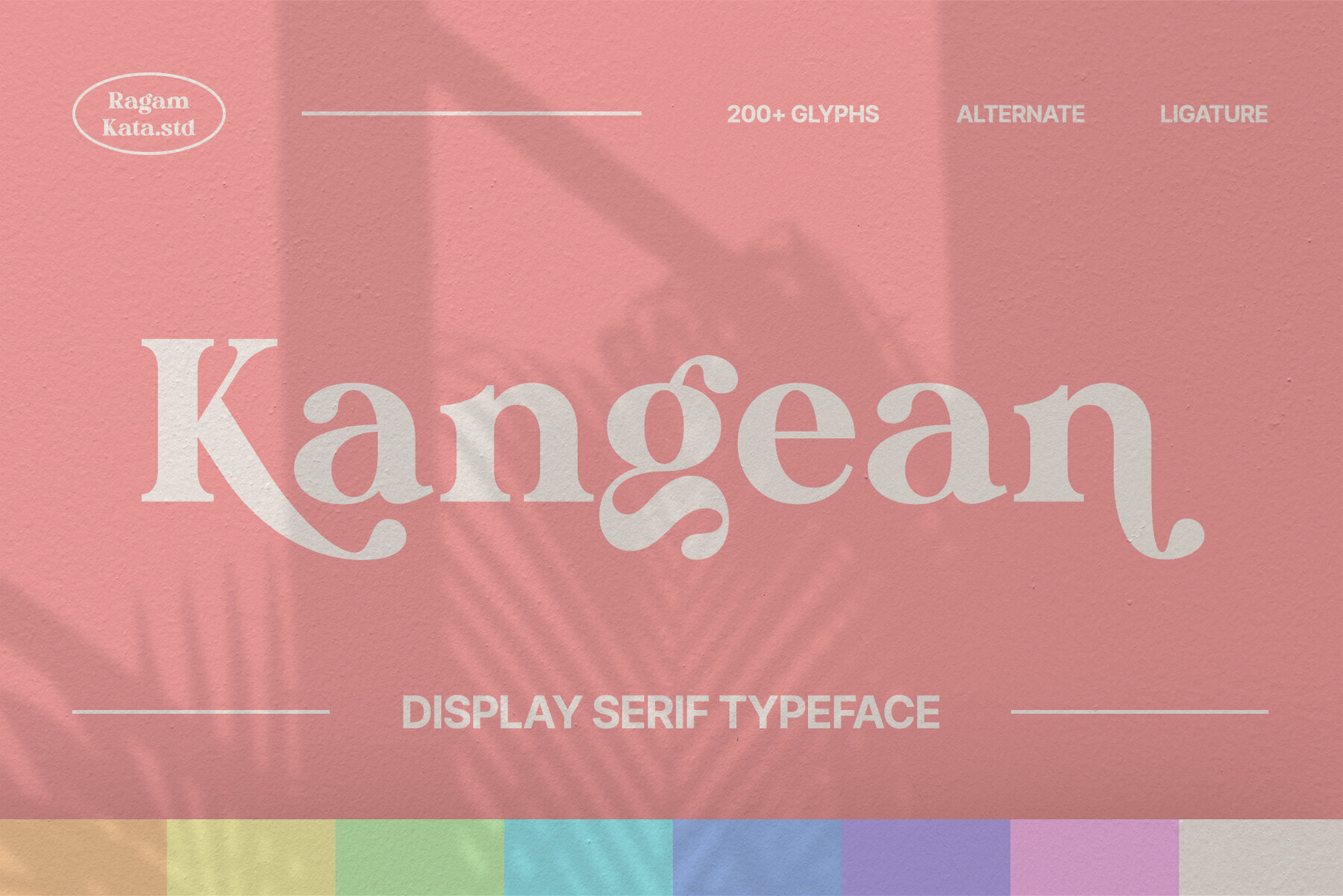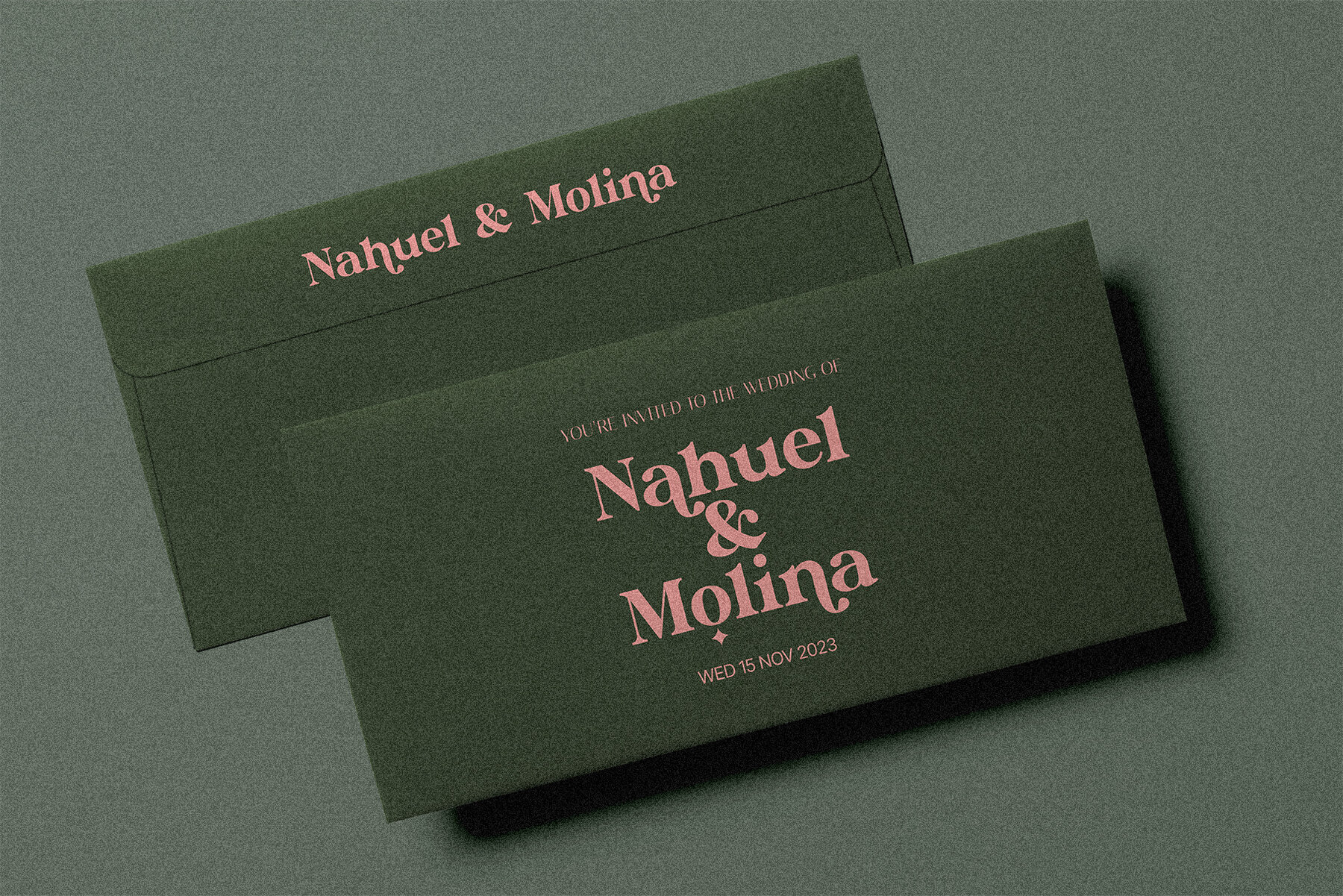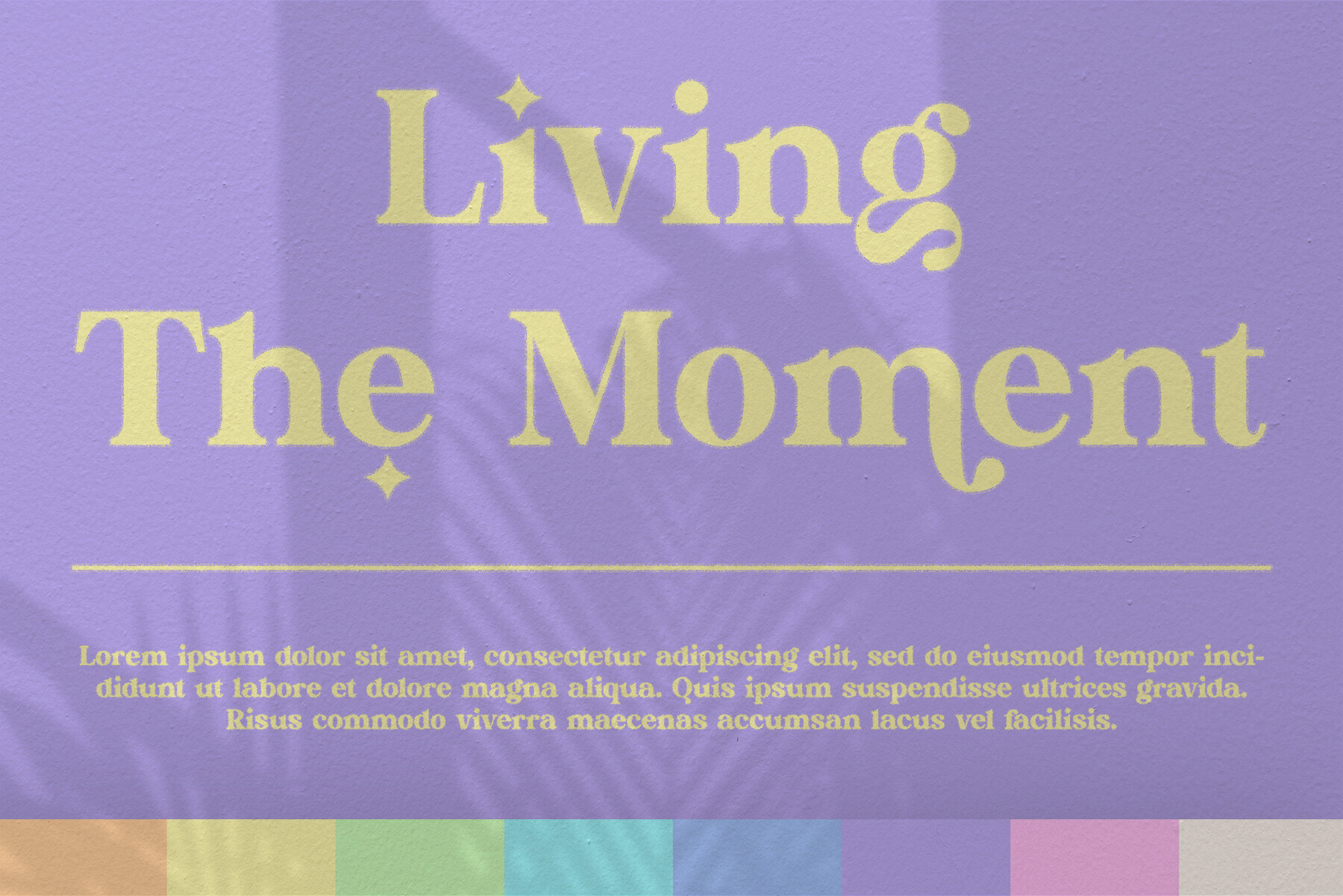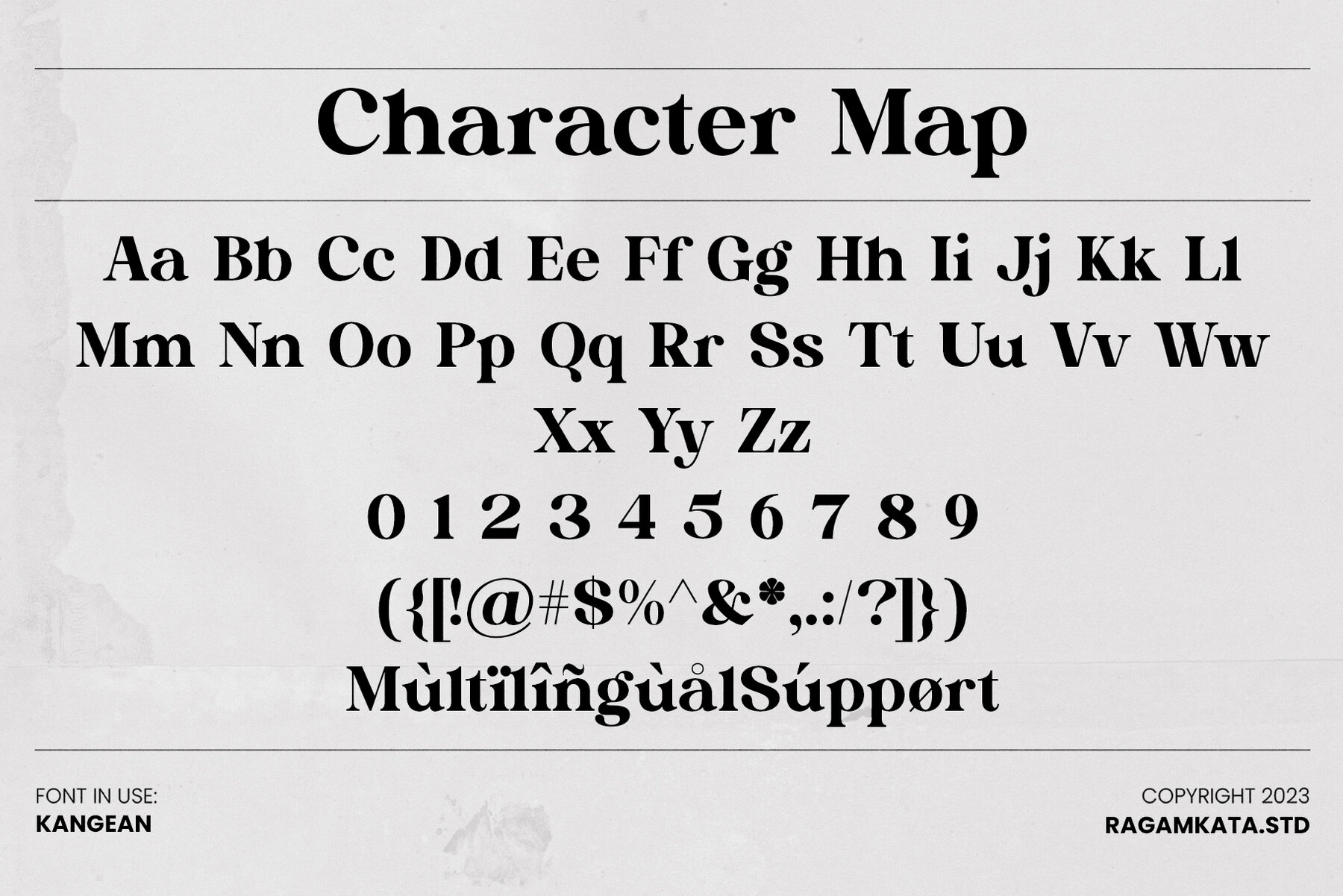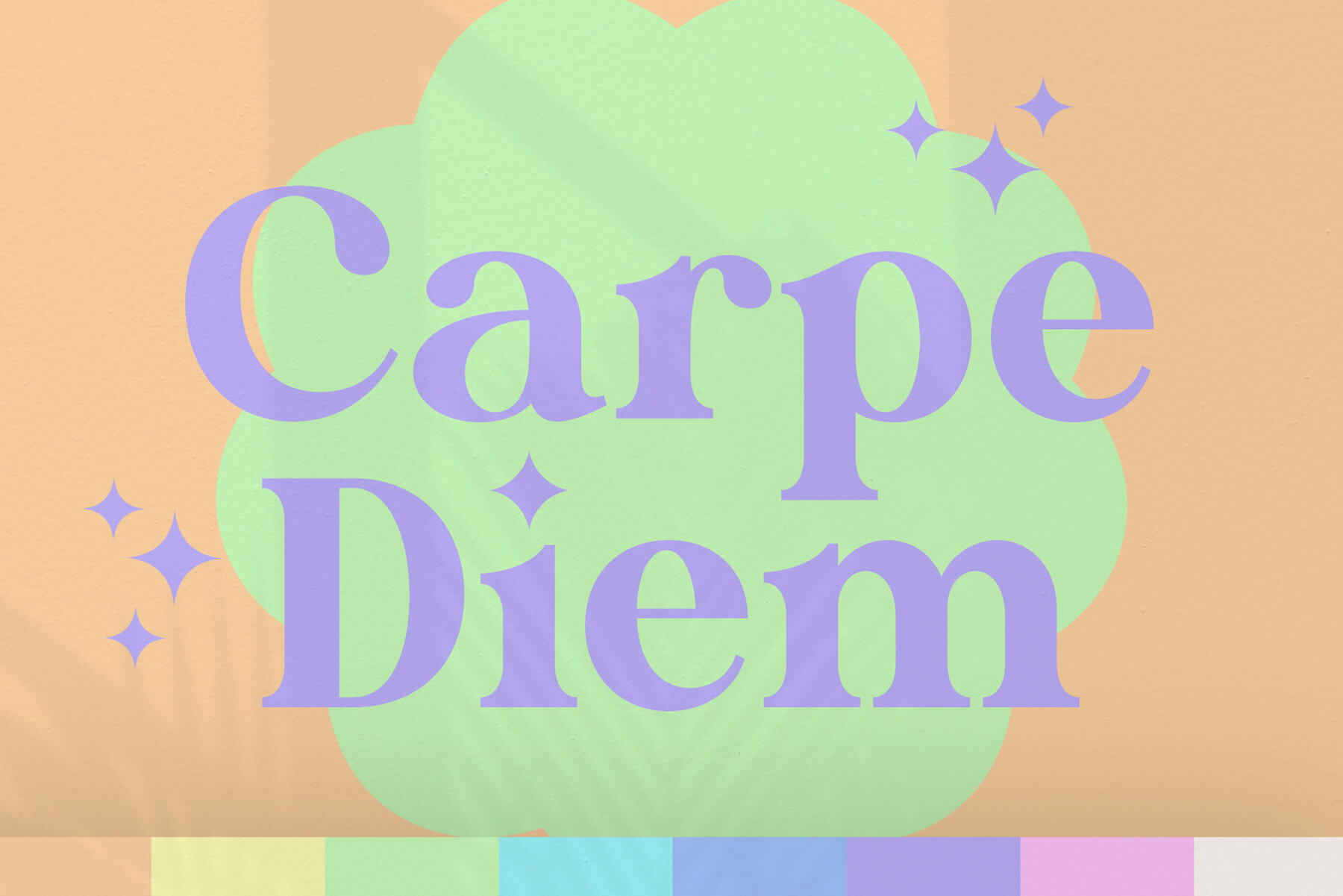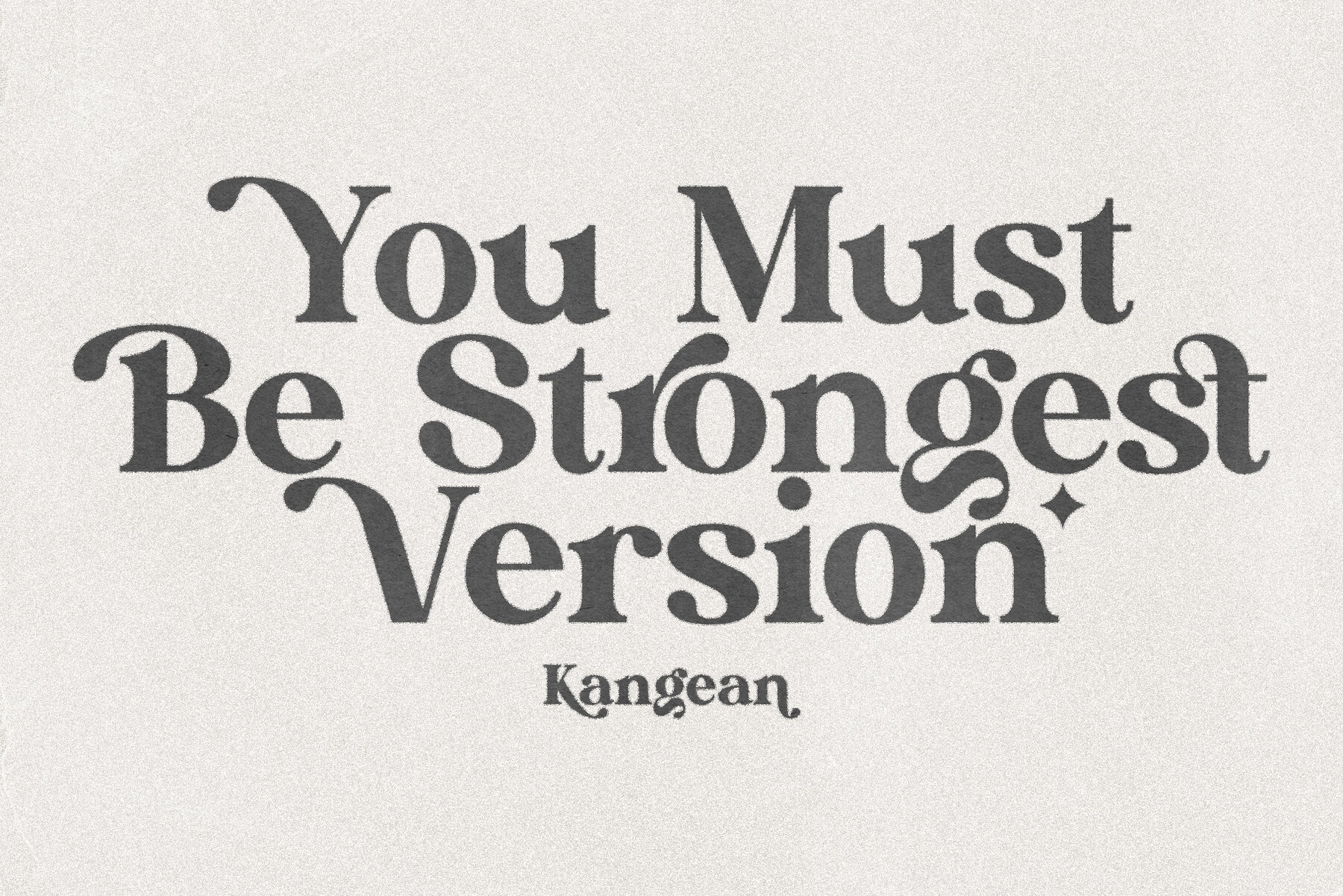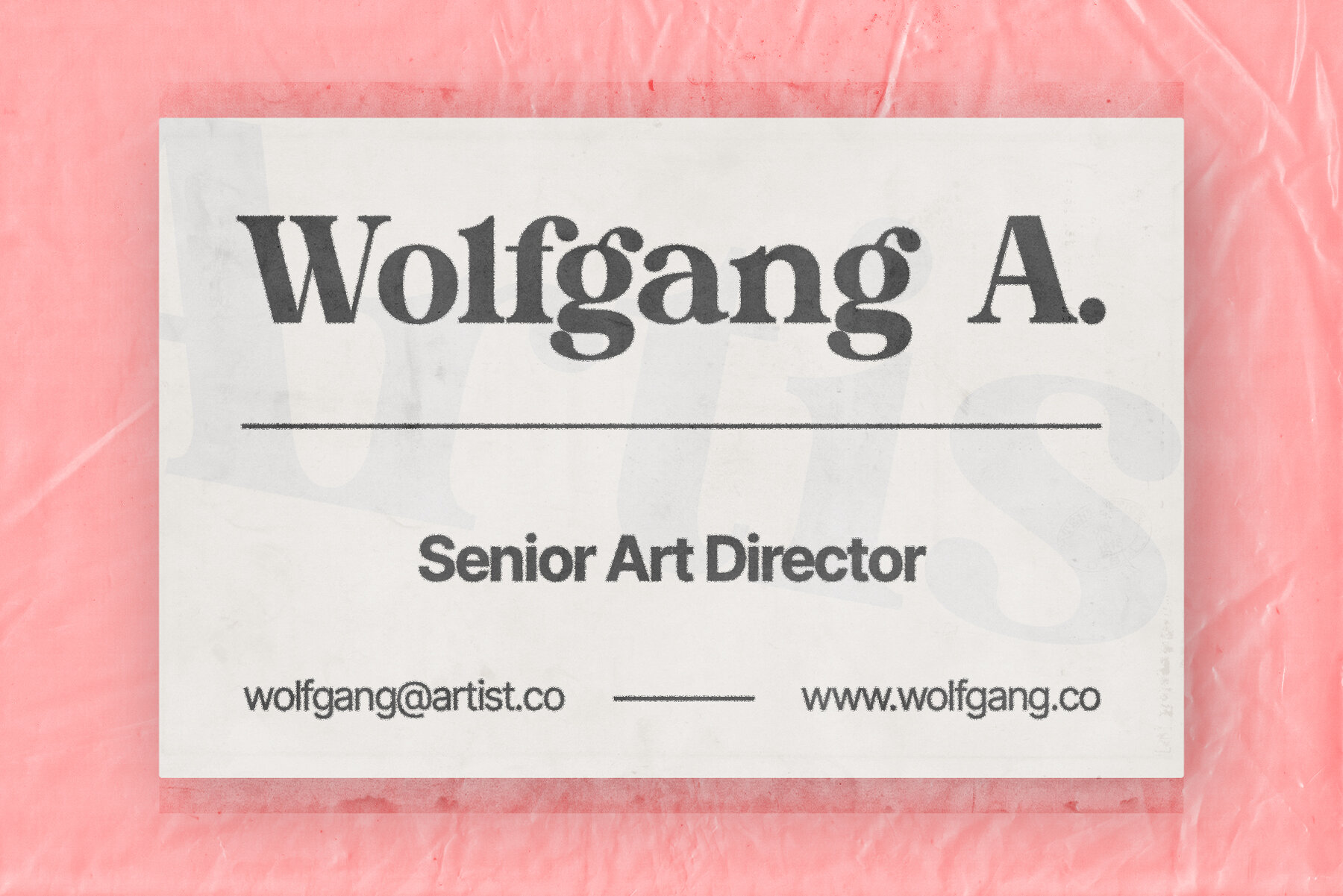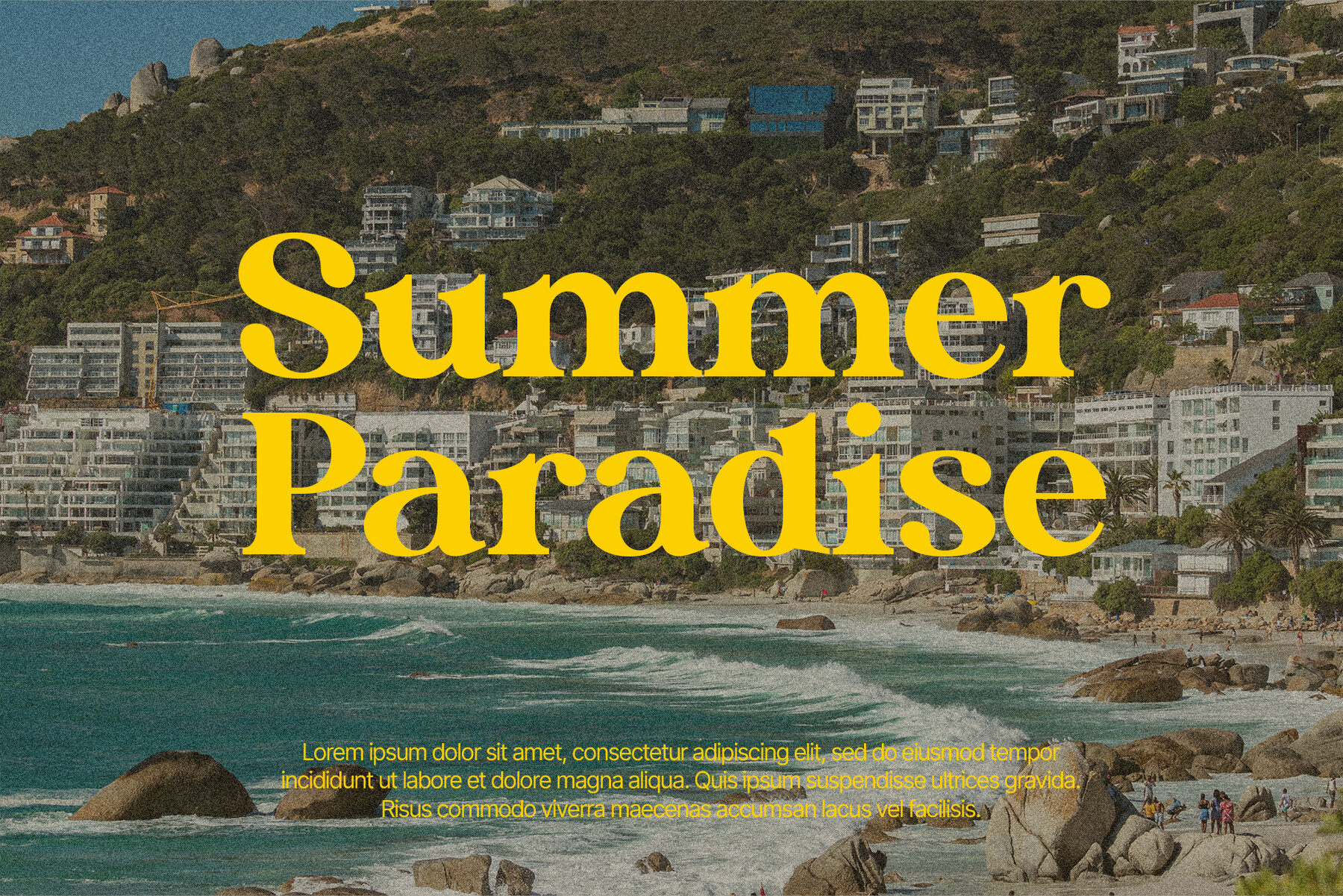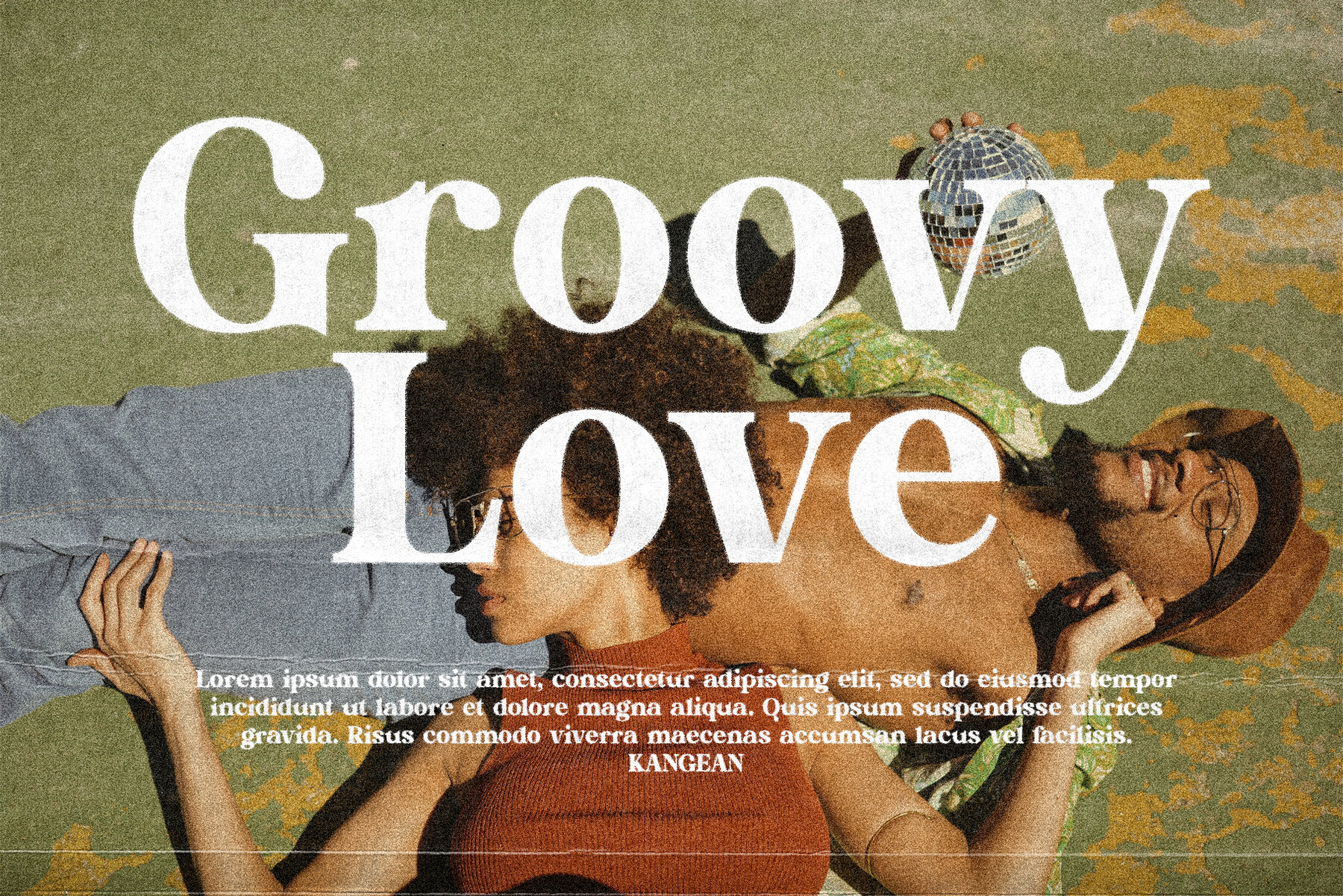
Kangean Font
Kangean Regular
Kangean is a cutting-edge serif display font that perfectly blends classic nostalgia with modern aesthetics. Its unique design introduces a touch of retro charm, making it an ideal choice for contemporary projects. With an array of alternates and ligatures, Kangean offers versatility and personality, perfect for anyone seeking a stylish typeface that seamlessly captures the essence of retro sophistication. If you have any questions, please feel free to contact us. Enjoy crafting with Kangean, and thank you for supporting our work!Kangean: A Retro Serif Display Font with Modern Flair